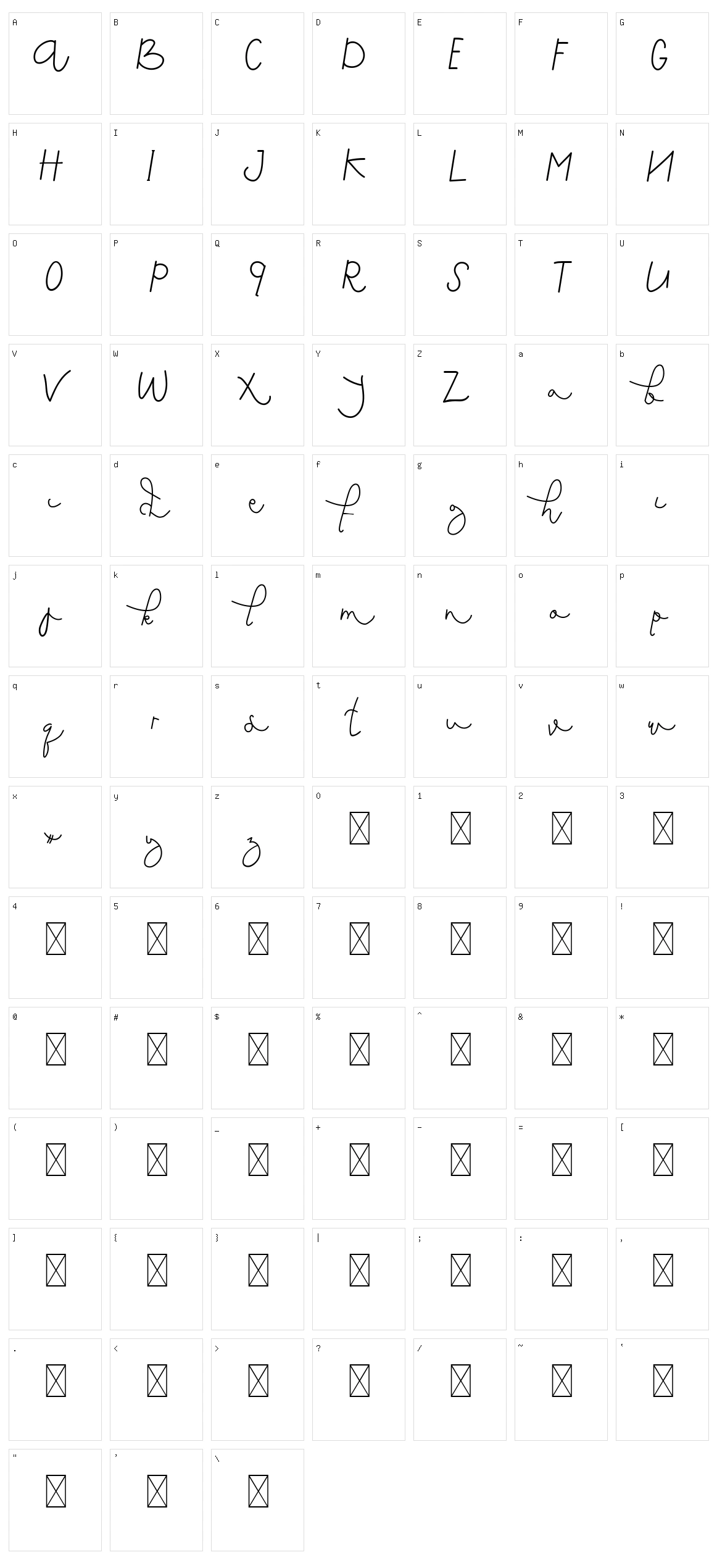
The free font Saeela Nuary is carefully designed by Edric Studio, showcasing a thoughtful balance of creativity and usability and falls under the Script font style. When you download the ZIP file, it contains only 17.77 KB of font files, making it lightweight and quick to download. Please review the license details below to understand permitted usage and distribution rights. If license information is not available, we recommend using this font for personal projects only or contacting the author directly for commercial usage permissions.